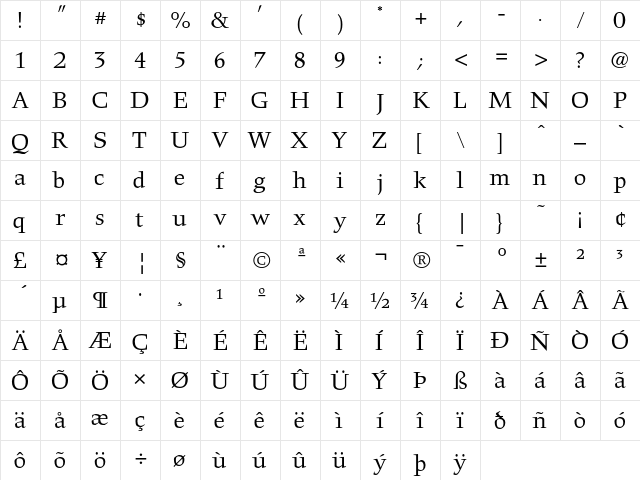
Hawkhurst LT Std Regular Regular
| Foundry | Linotype Library GmbH |
| Designer | Richard Yeend |
Design Context for Hawkhurst LT Std Regular Typeface
Hawkhurst LT Std Regular takes a measured approach to typography — its balanced proportions and neutral character make it a reliable workhorse for both digital and print work. Its slender proportions lend an understated elegance to any composition.